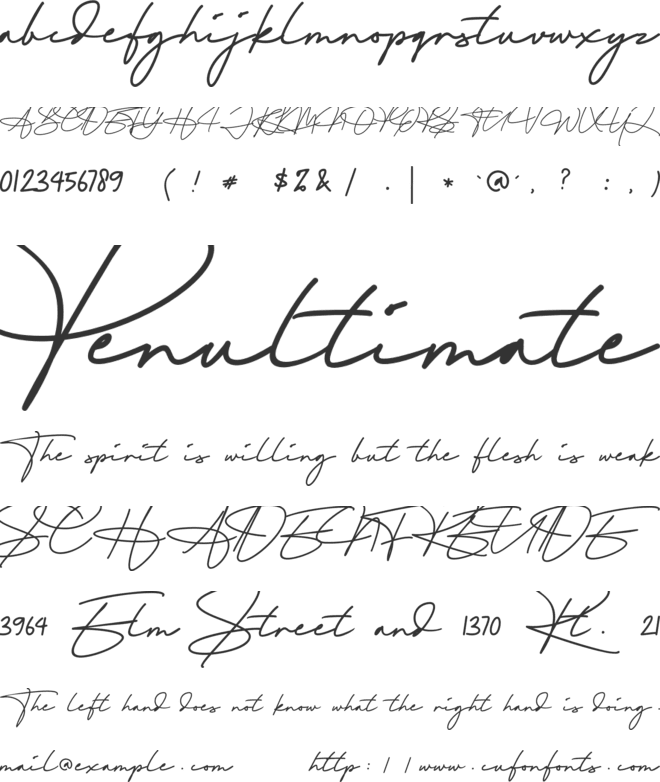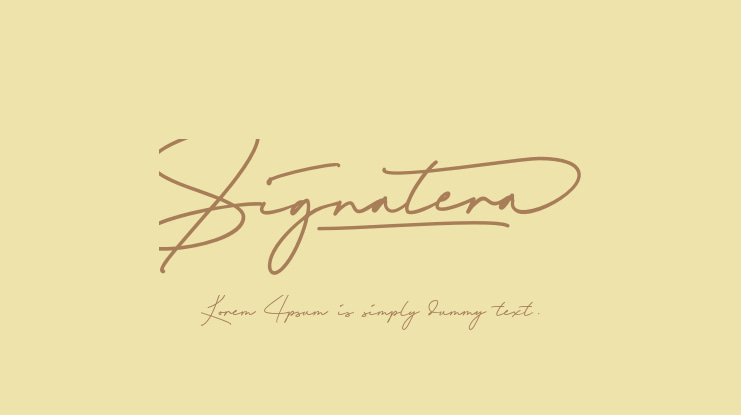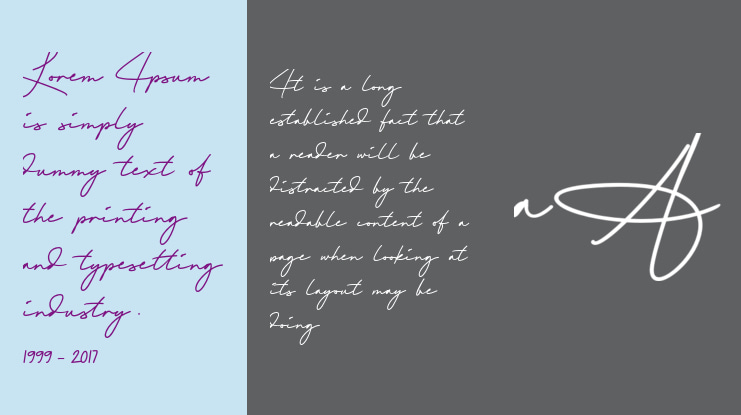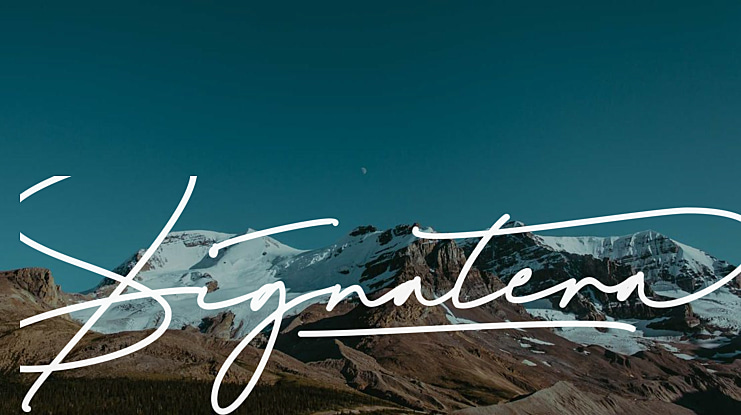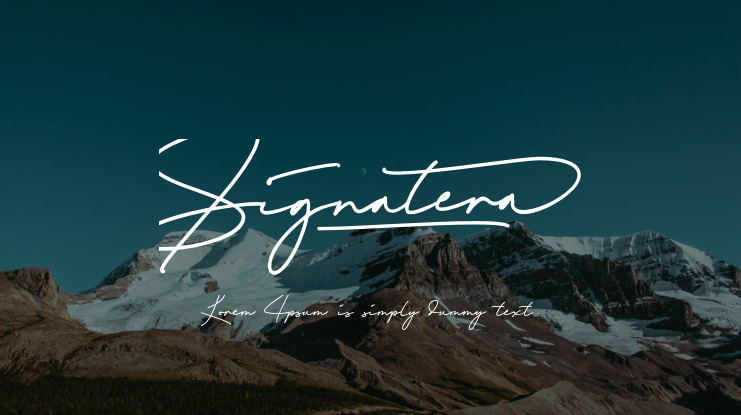
Signatera Font
Introducing Signatera, a sophisticated signature font that exudes beauty, luxury, elegance, and class. This font is ideal for creating fashion branding logos, book titles, photography logos, watermarks, social media posts, wedding invitations, taglines, headlines, and, of course, signatures.